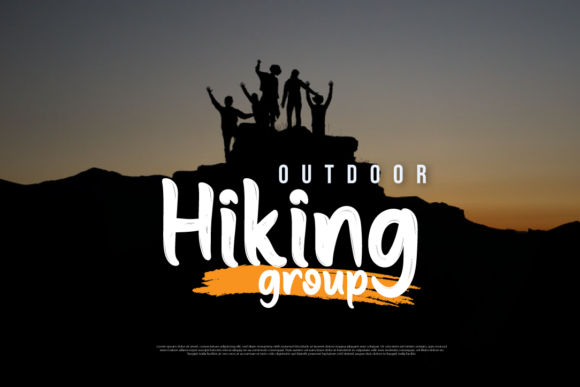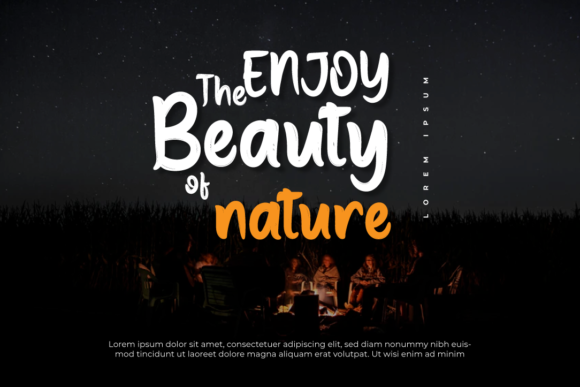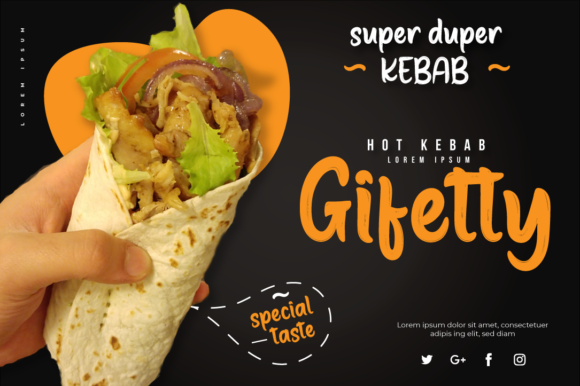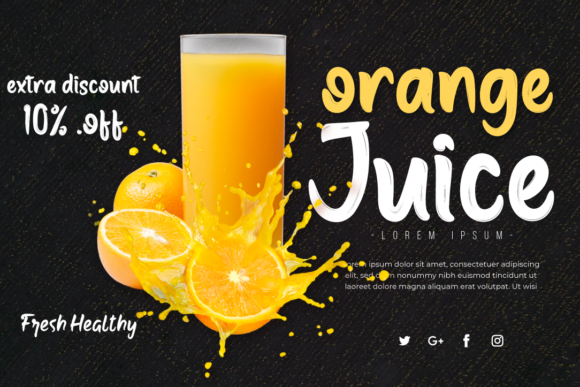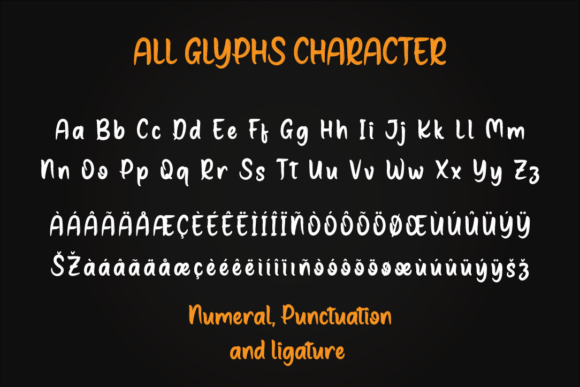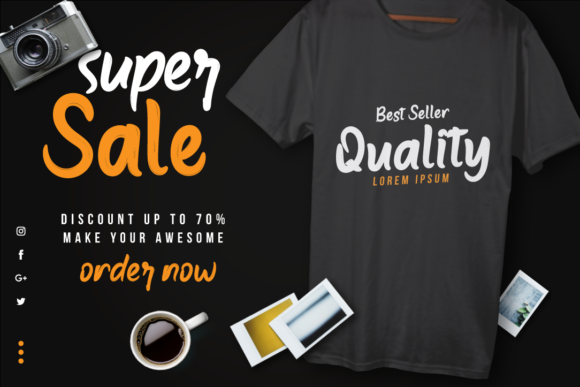
Introducing Gifted Font: The Perfect Brush Handwritten Font for Your Creative Projects
Are you a designer, crafty person, or simply someone who loves to create unique and outstanding designs? Look no further! Gifted Font is here to revolutionize your creative projects with its beautiful brush handwritten style. In this article, we’ll dive into the world of Gifted Font, exploring its features, uses, and benefits. Whether you’re a seasoned designer or a beginner, you’ll discover why Gifted Font is the perfect addition to your font collection.
What is Gifted Font?
Gifted Font is a stunning brush handwritten font that exudes elegance, sophistication, and playfulness. Its unique, hand-crafted design makes it perfect for creating original and eye-catching designs that stand out from the crowd. With Gifted Font, you can add a personal touch to your projects, making them more relatable and engaging.
Features of Gifted Font
So, what makes Gifted Font so special? Here are some of its key features:
- Brush Handwritten Style: Gifted Font boasts a beautiful, hand-painted look that’s perfect for creating unique designs.
- Versatile: This font is great for a wide variety of projects, including branding, advertising, posters, banners, packaging, podcasts, outdoor activities, apparel, quotes, beverages, and more.
- Easily Readable: Despite its artistic style, Gifted Font is highly legible, making it perfect for body text and headlines.
- Scalable: Gifted Font is designed to look great at any size, from small captions to large billboards.
Uses of Gifted Font
The possibilities are endless with Gifted Font! Here are some ideas to get you started:
- Branding and Logo Design: Create a memorable brand identity with Gifted Font, perfect for logos, business cards, and letterheads.
- Advertising and Marketing: Use Gifted Font in your ad campaigns to add a touch of personality and flair.
- Posters and Banners: Create eye-catching posters and banners that grab attention with Gifted Font.
- Packaging Design: Add a personal touch to your product packaging with Gifted Font, making it stand out on store shelves.
- Social Media and Blogging: Use Gifted Font in your social media graphics, blog posts, and articles to add visual interest.
Benefits of Using Gifted Font
So, why choose Gifted Font for your projects? Here are some benefits you can expect:
- Unique and Original: Gifted Font helps you create designs that stand out from the crowd, making your brand or project more memorable.
- Time-Saving: With Gifted Font, you can create professional-looking designs in no time, saving you hours of design work.
- High-Quality: Gifted Font is crafted with love and care, ensuring a high-quality design that looks great in any context.
In conclusion, Gifted Font is a beautiful, versatile, and easy-to-use brush handwritten font that’s perfect for designers, crafters, and creatives. With its unique style, wide range of uses, and numerous benefits, Gifted Font is an excellent addition to any font collection. Whether you’re looking to create stunning branding, eye-catching posters, or engaging social media graphics, Gifted Font has got you covered. So why wait? Download Gifted Font today and take your designs to the next level!